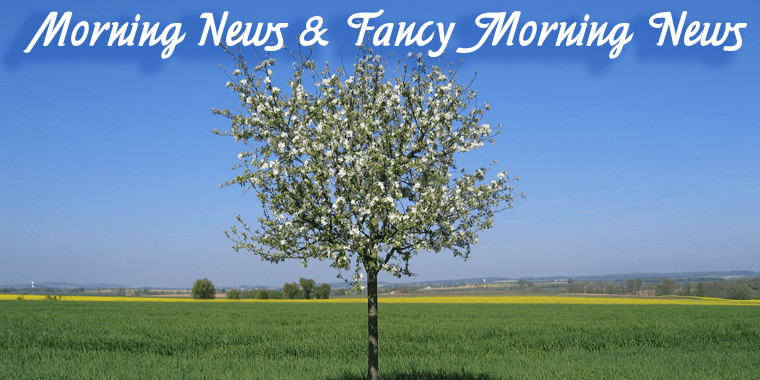
Morning News
Morning News is an adaption, a little bit rounder, which gives the font a much softer touch. The general design dates back to the pre-Hitler era, the time when Germany had already lost the first World War and was taking a short deadly breath to start the second big war.